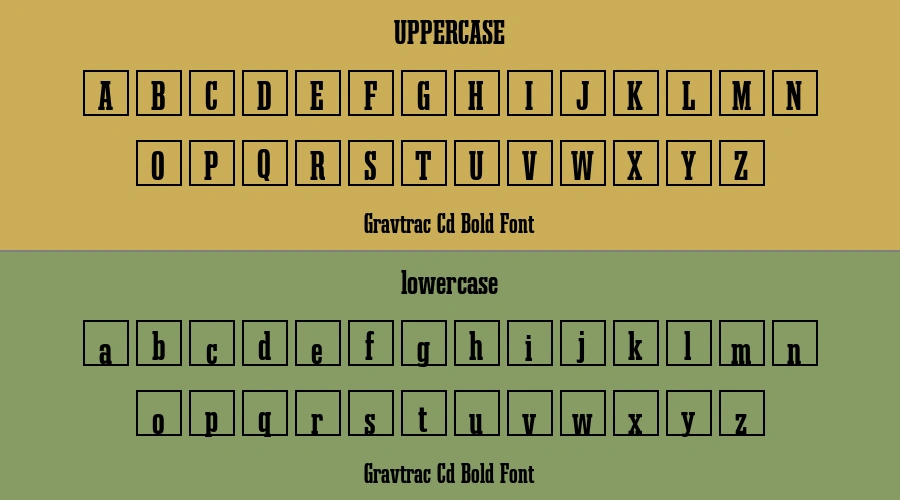
About Gravtrac Cd Bold Font
Designed with precision, Gravtrac Cd Bold Font merges elegant curves with memorability in every character. This versatility makes it particularly effective for engineering specs, where reliability and design innovation directly impact communication quality. Each letterform demonstrates meticulous craftsmanship.
Technical excellence shines through elements like refined proportions and logotype support, enhancing typographic versatility. In display applications settings, Gravtrac Cd Bold Font proves its worth through superior data presentation. The thoughtful execution of serif length and design philosophy ensures professional results.